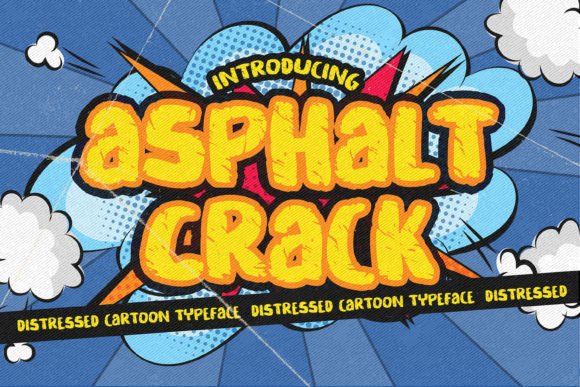
The Perfect Distressed Touch: Unleashing the Power of Asphalt Crack Font
As designers, we’ve all been there – staring at a blank canvas, struggling to find the perfect font to bring our creative vision to life. But what if I told you there’s a font that can add a touch of modern sophistication to even the most mundane designs? It’s a font that’s been crafted to stand out from the crowd, with a distressed, cartoon-like aesthetic that’s guaranteed to grab attention.
Meet Asphalt Crack Font, a display font that’s been inspired by the logos and branding of modern times. This versatile font is perfect for adding a unique twist to posters, children’s cards, packaging, and more. With its strong and challenging nuances, Asphalt Crack Font is a valuable addition to any designer’s toolkit, capable of elevating even the simplest designs into something truly special.
Asphalt Crack Font Key Features
- Font Family: Asphalt Crack Font is a unique, hand-drawn font designed to resemble asphalt cracks, making it ideal for creative projects and designs that require a distressed or worn look.
- Character Set: The font includes a wide range of characters, including uppercase and lowercase letters, numbers, and punctuation marks, making it suitable for various text-based applications.
- Unique Characteristics: Asphalt Crack Font features a distressed, hand-drawn look with irregularities and imperfections, giving it a unique and eye-catching appearance.
Asphalt Crack Font Review
Overall, I think the Asphalt Crack Font has some interesting qualities that make it stand out, but it also has some limitations that prevent it from being a top-tier font.
- The font’s distressed texture gives it a unique, hand-drawn feel that’s perfect for grunge or punk-inspired designs.
- The bold, chunky letters are great for headings and titles, and the font’s rough edges add a lot of character.
- The font is highly customizable, with a wide range of size and color options available.
- The font’s readability can be a problem at smaller sizes, especially when used for body text.
- The font’s inconsistent letter spacing can make it look a bit sloppy or uneven.
- The font’s limited font weights and styles may not be enough for some designers who need more flexibility.
Overall, I think the Asphalt Crack Font is a solid choice for designers who want to add a bit of edge to their projects. While it has some limitations, it’s a fun and versatile font that’s worth checking out.
The Asphalt Crack Font is commonly used to add a distressed or worn look to text, making it perfect for:
- Street art and graffiti designs
- Retro or vintage-themed designs
- Distressed or worn-out text effects
To get the most out of the Asphalt Crack Font, try:
- Combining it with other distressed or worn-out textures
- Adjusting the font size and color to create contrast
- Experimenting with different alignment and spacing options
Alternatives to Asphalt Crack Font
Abracadabra Font
Abracadabra Font is a distressed font that mimics the look of old, worn-out surfaces. It’s ideal for designers who want to add a touch of nostalgia to their projects, particularly those related to vintage or retro themes. Unlike Asphalt Crack Font, Abracadabra Font has a more uniform texture and is less focused on representing actual cracks.
Concrete Font
Concrete Font is a versatile font that resembles the texture of concrete. It’s suitable for designers who need a font that conveys a sense of ruggedness and industrial feel. Compared to Asphalt Crack Font, Concrete Font is more general in its texture and can be used in a broader range of contexts, from construction to urban landscapes.